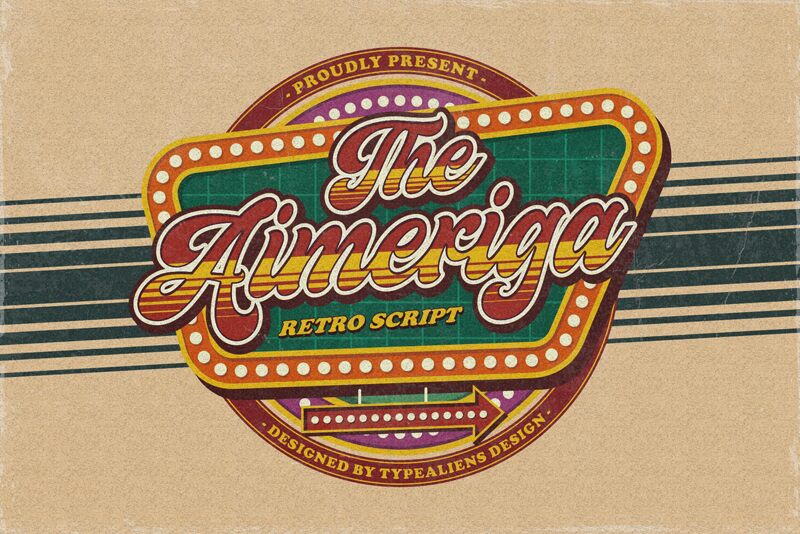
Aimeriga-Regular
Aimeriga, designed by the talented ilhamtaro, is a bold statement in the realm of typography, exuding a retro brush flair that captivates at first glance. Its semi-condensed width offers a harmonious balance between impactful presence and graceful elegance. The Aimeriga font's aesthetic appeal lies in its dynamic contrast and fluidity, reminiscent of vintage hand-lettered signage that commands attention while maintaining an air of sophistication.
The robust weight of this typeface anchors designs with authority, making it an impeccable choice for branding projects desiring a touch of nostalgia without sacrificing modernity. Whether used for eye-catching headers or as the centerpiece in logo creation, Aimeriga's unique style ensures memorable impressions across various creative endeavors—from advertising campaigns to editorial work.